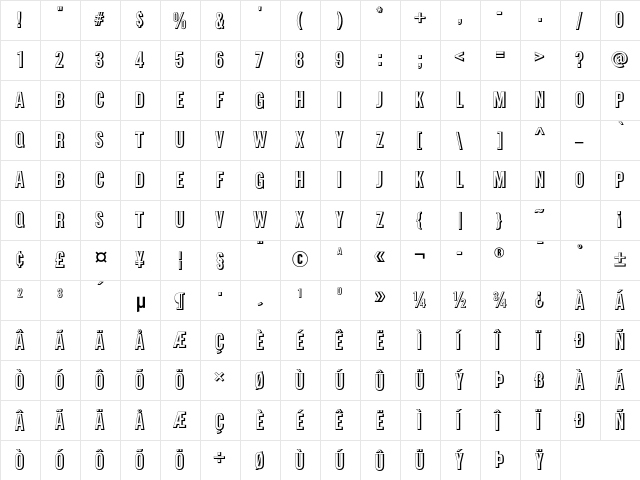
Commerce Gothic Std Regular
Design Context for Commerce Gothic Std Typeface
Commerce Gothic Std has the quiet confidence of well-executed sans-serif typography: versatile, unobtrusive, and dependable at any size.
Font Pairing: Works well alongside a characterful serif or display font that can carry the expressive load while Commerce Gothic Std handles the functional copy.
Pro Tip: Use Commerce Gothic Std for UI labels, navigation, and short-form body copy where clean legibility is the priority.